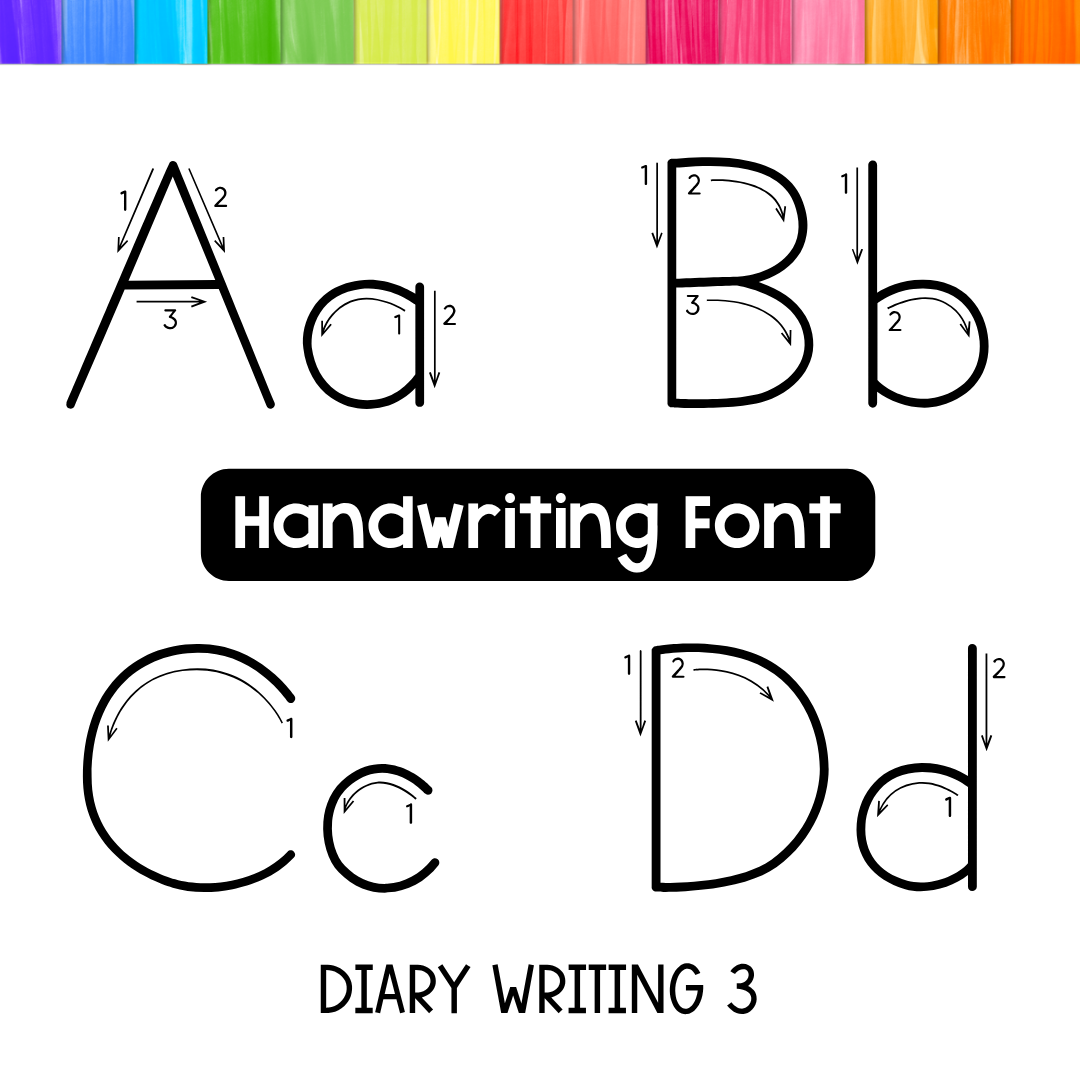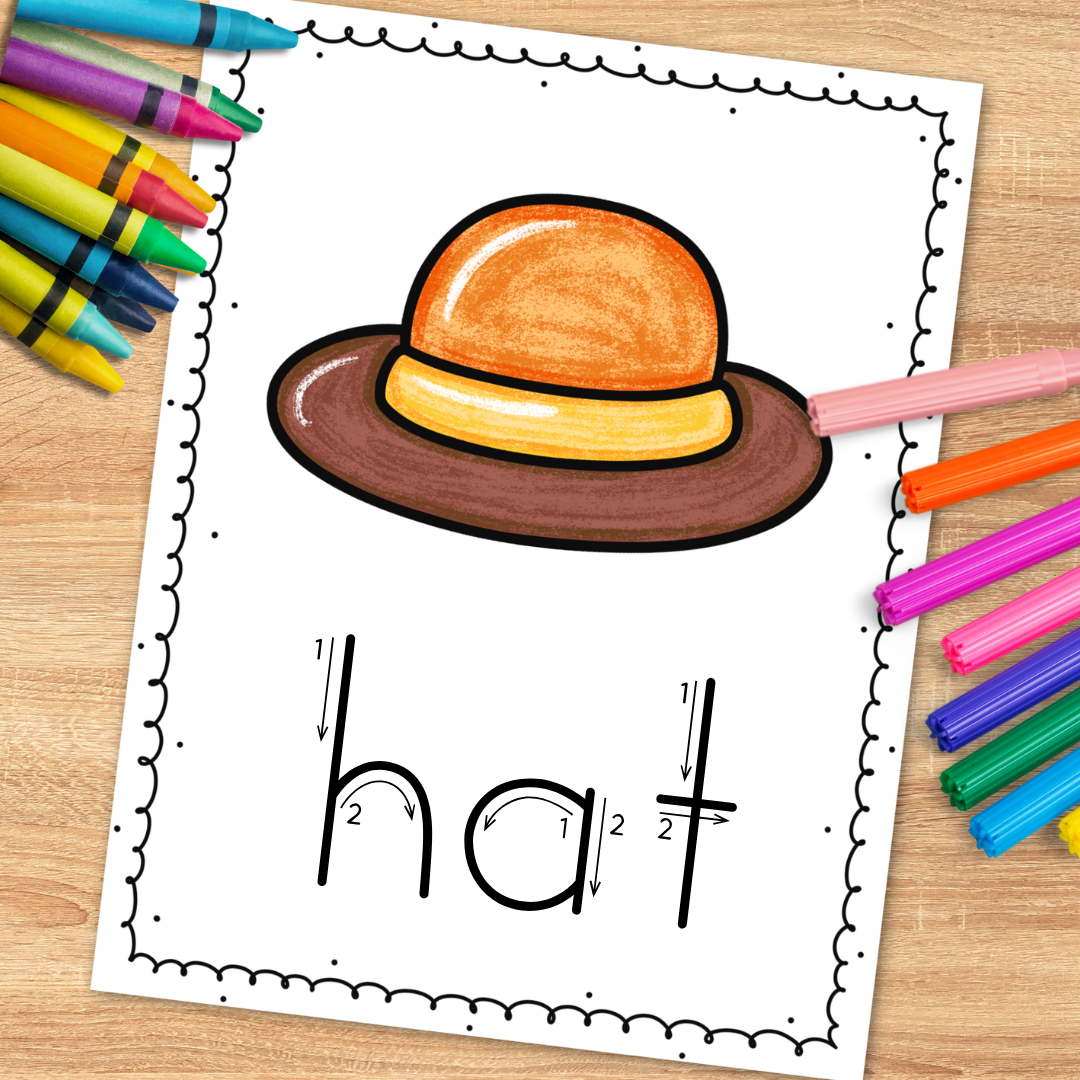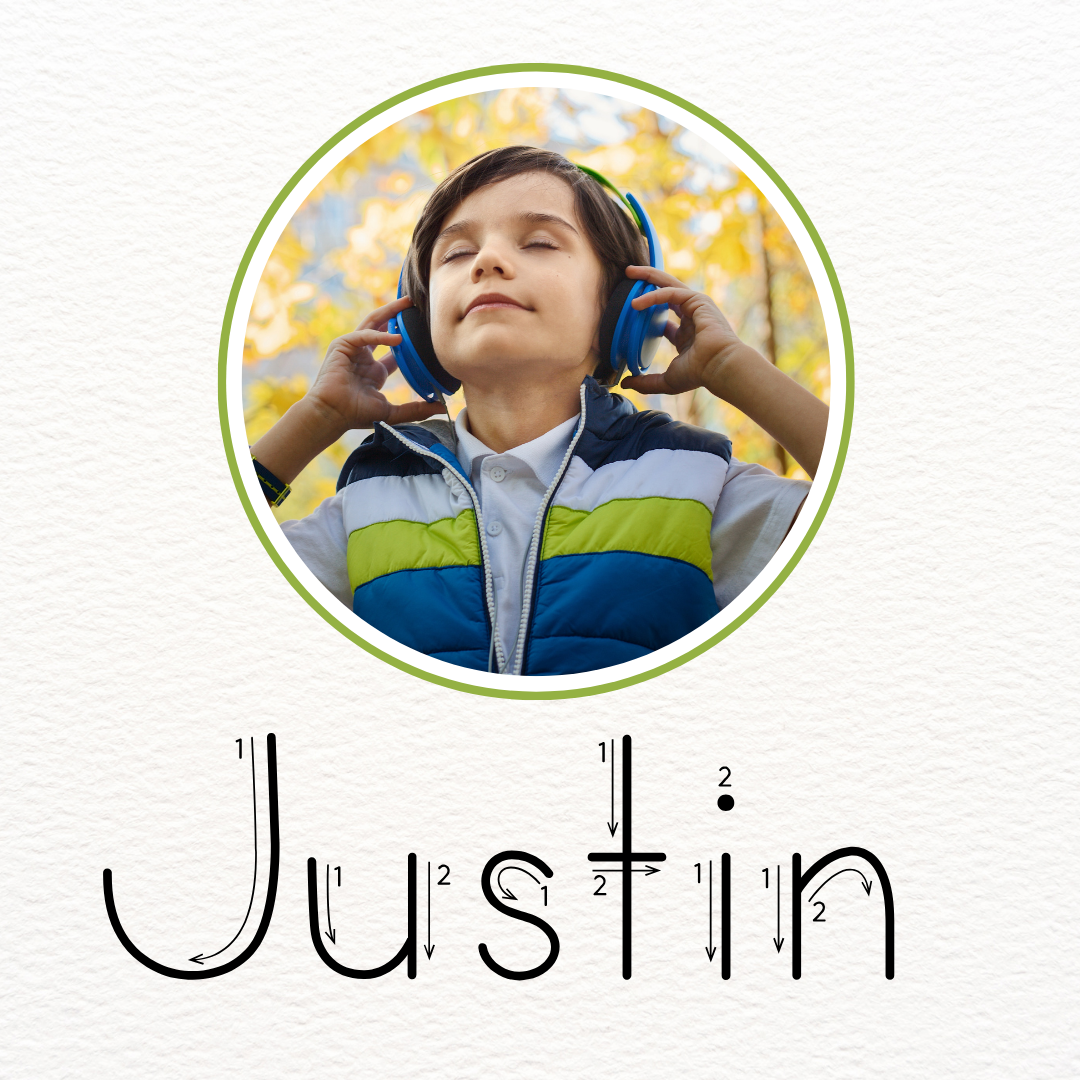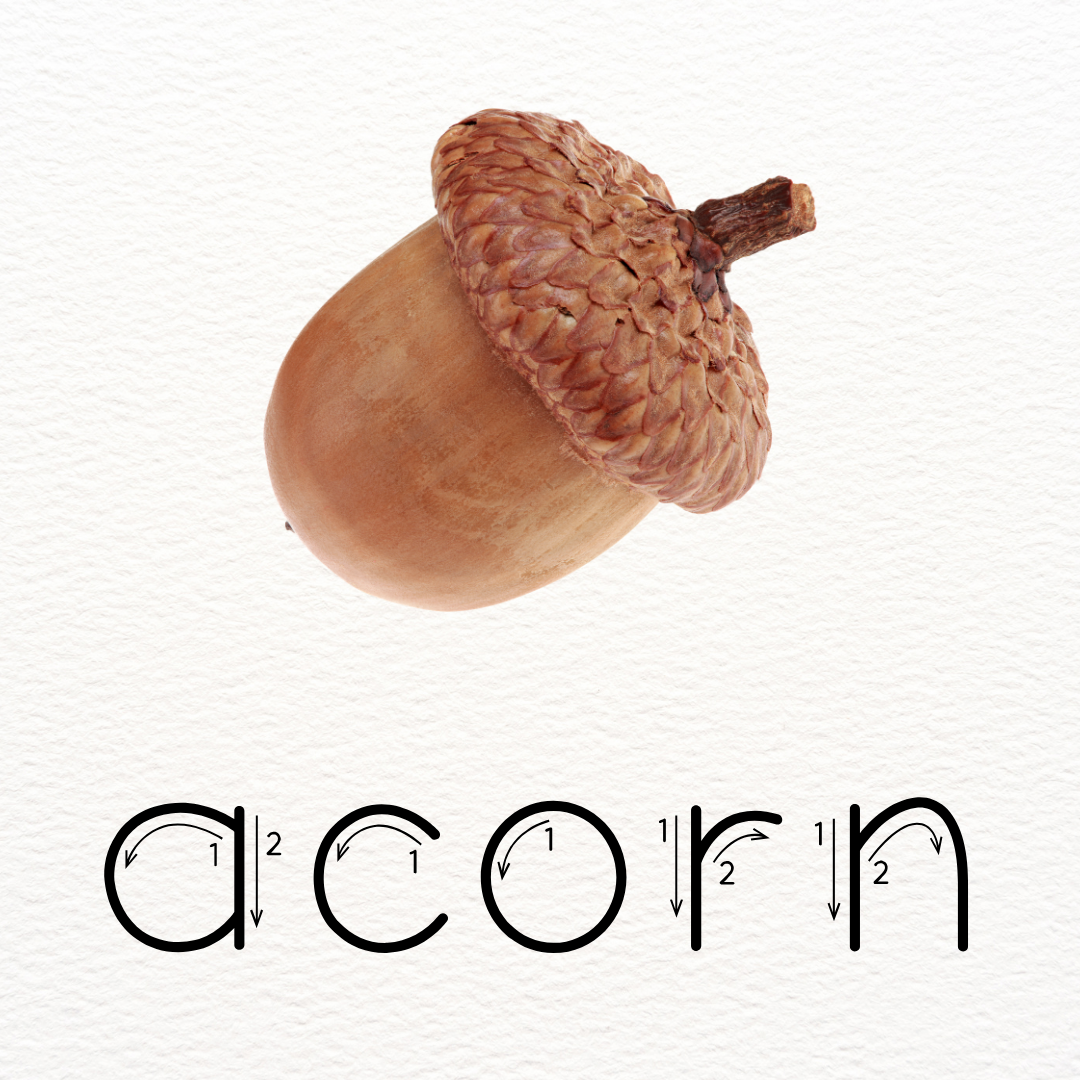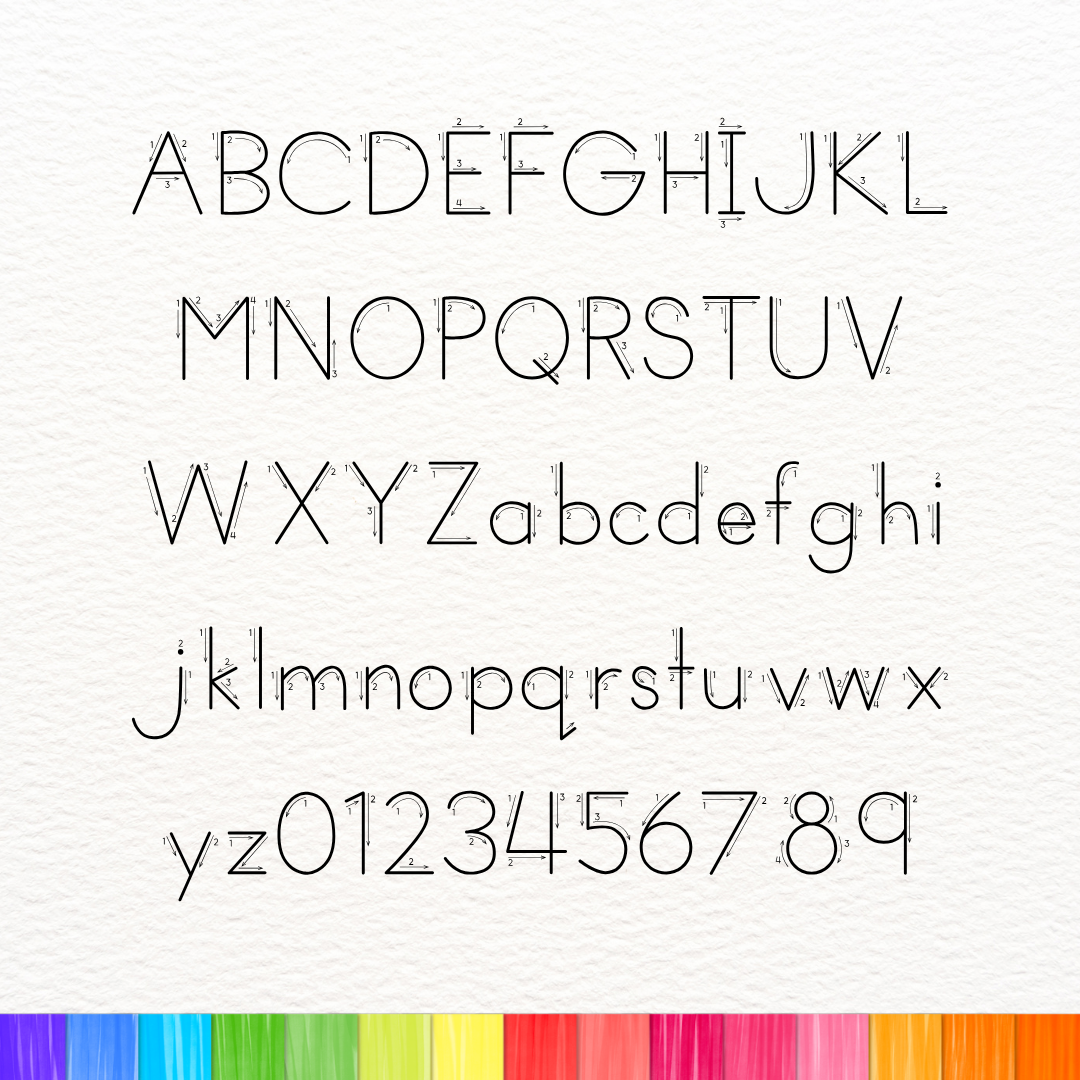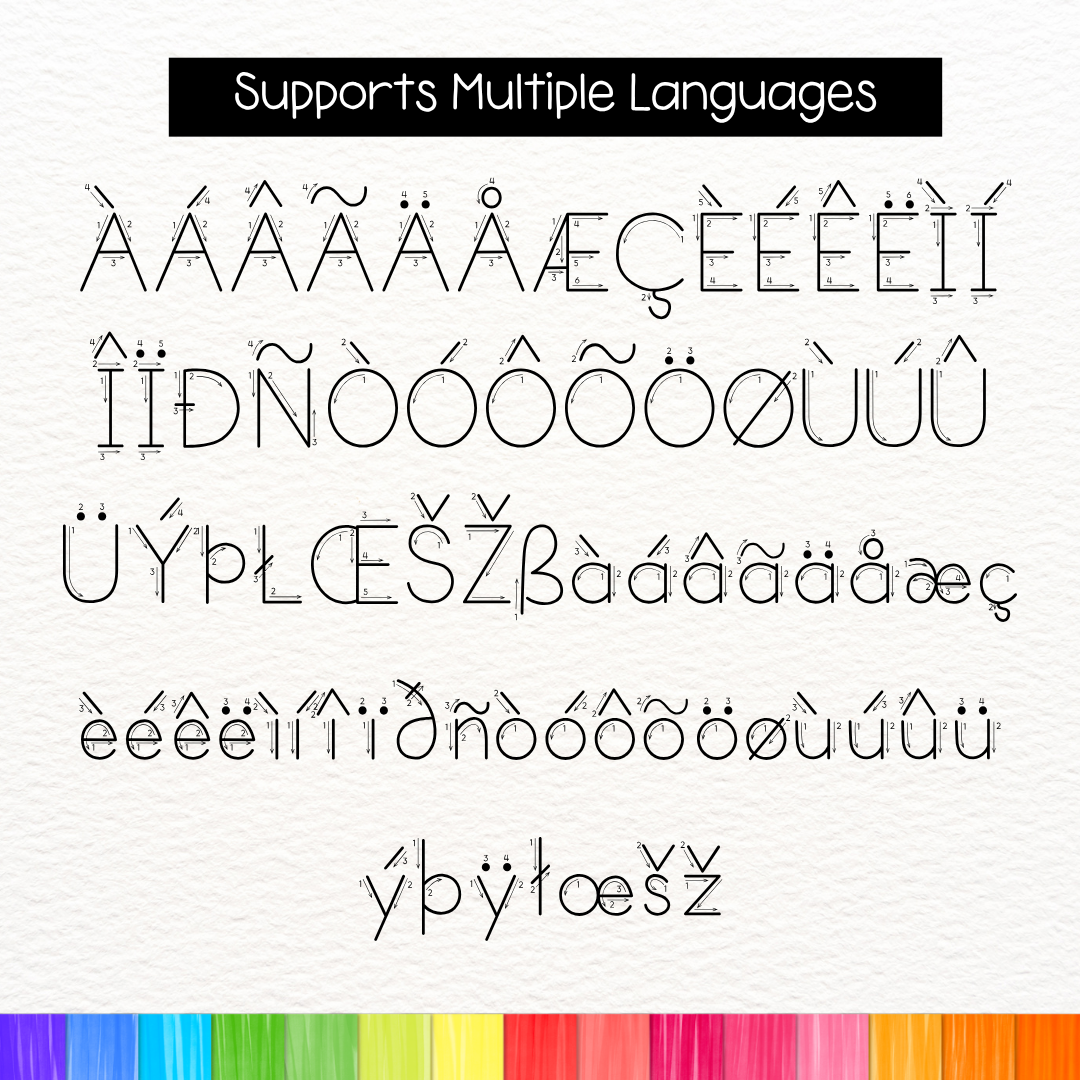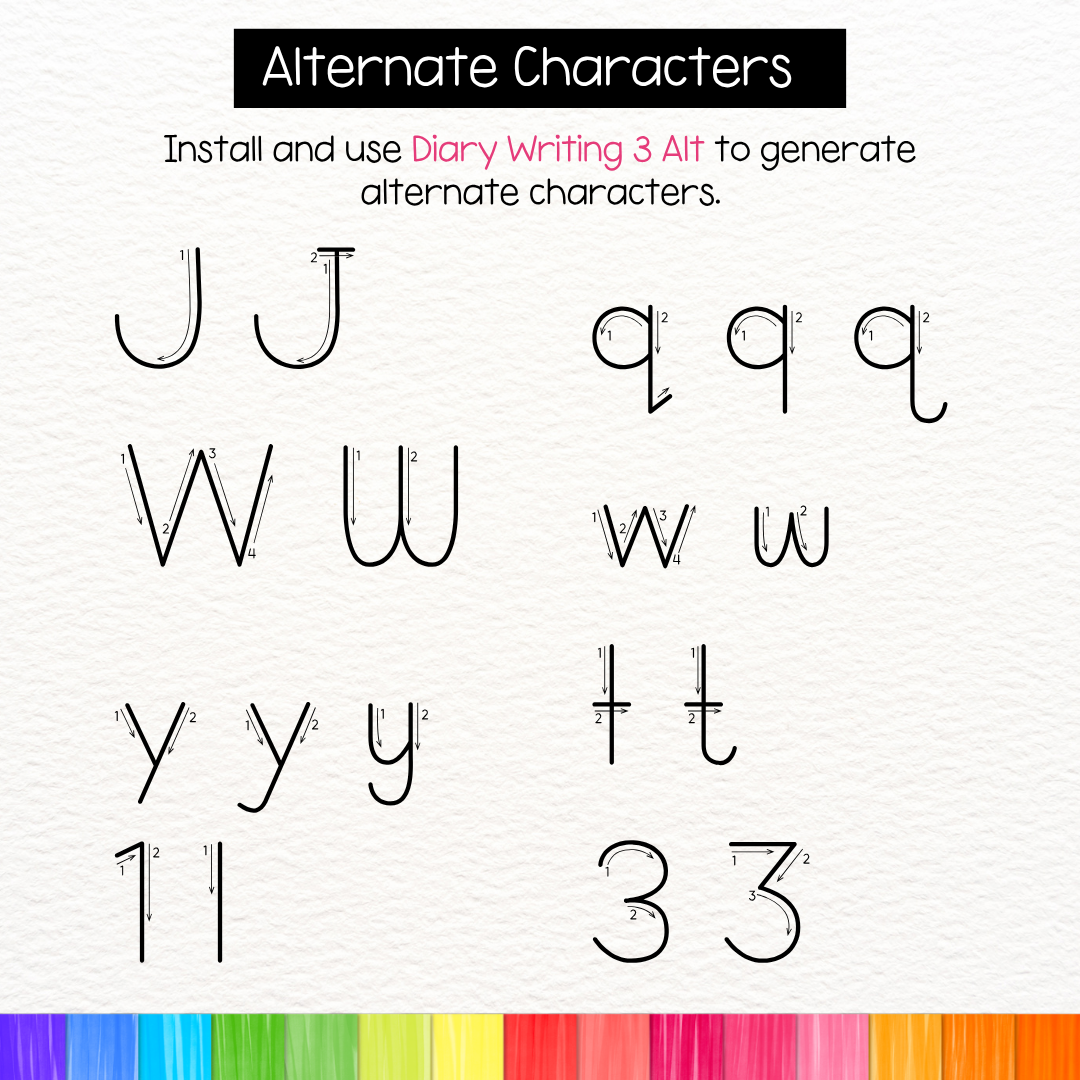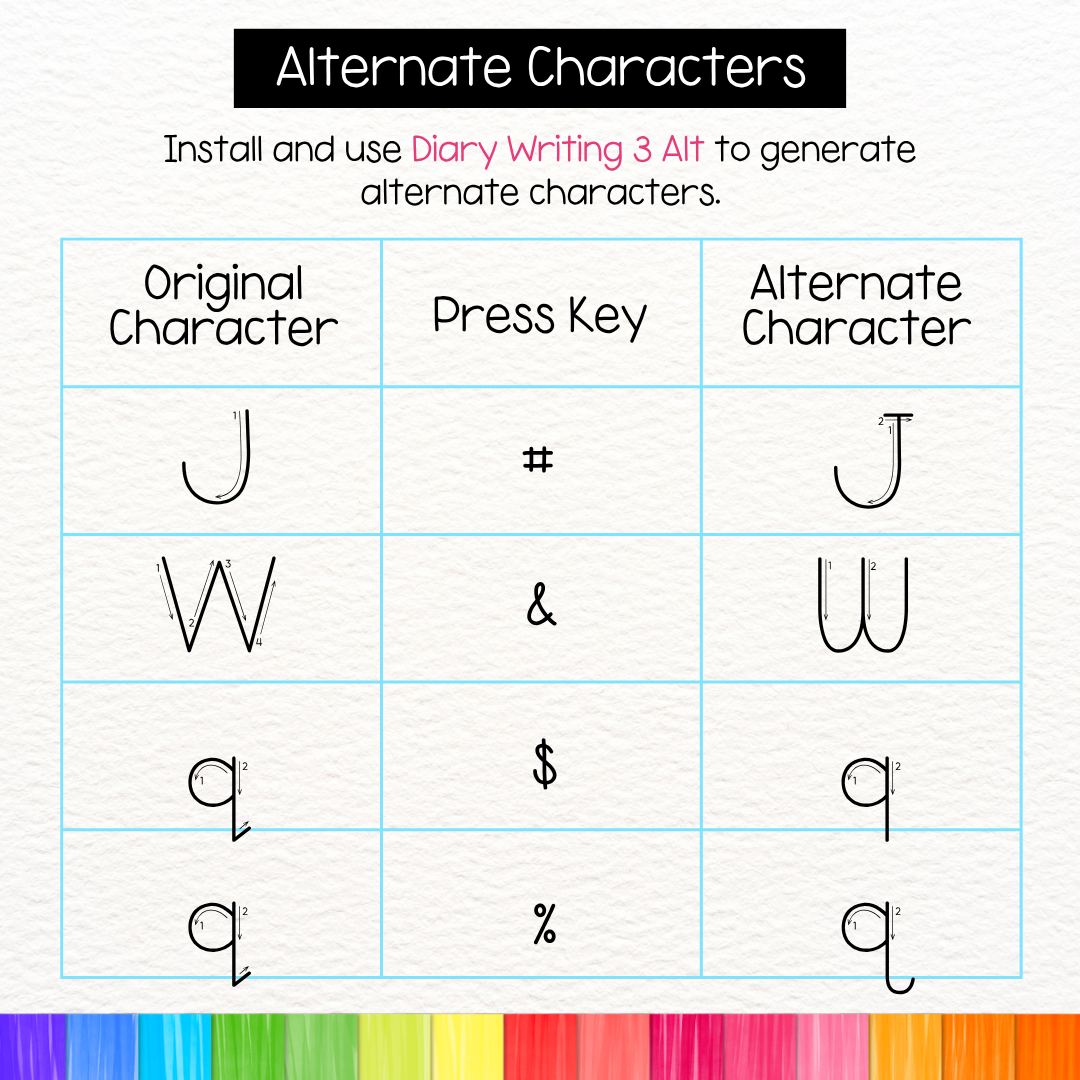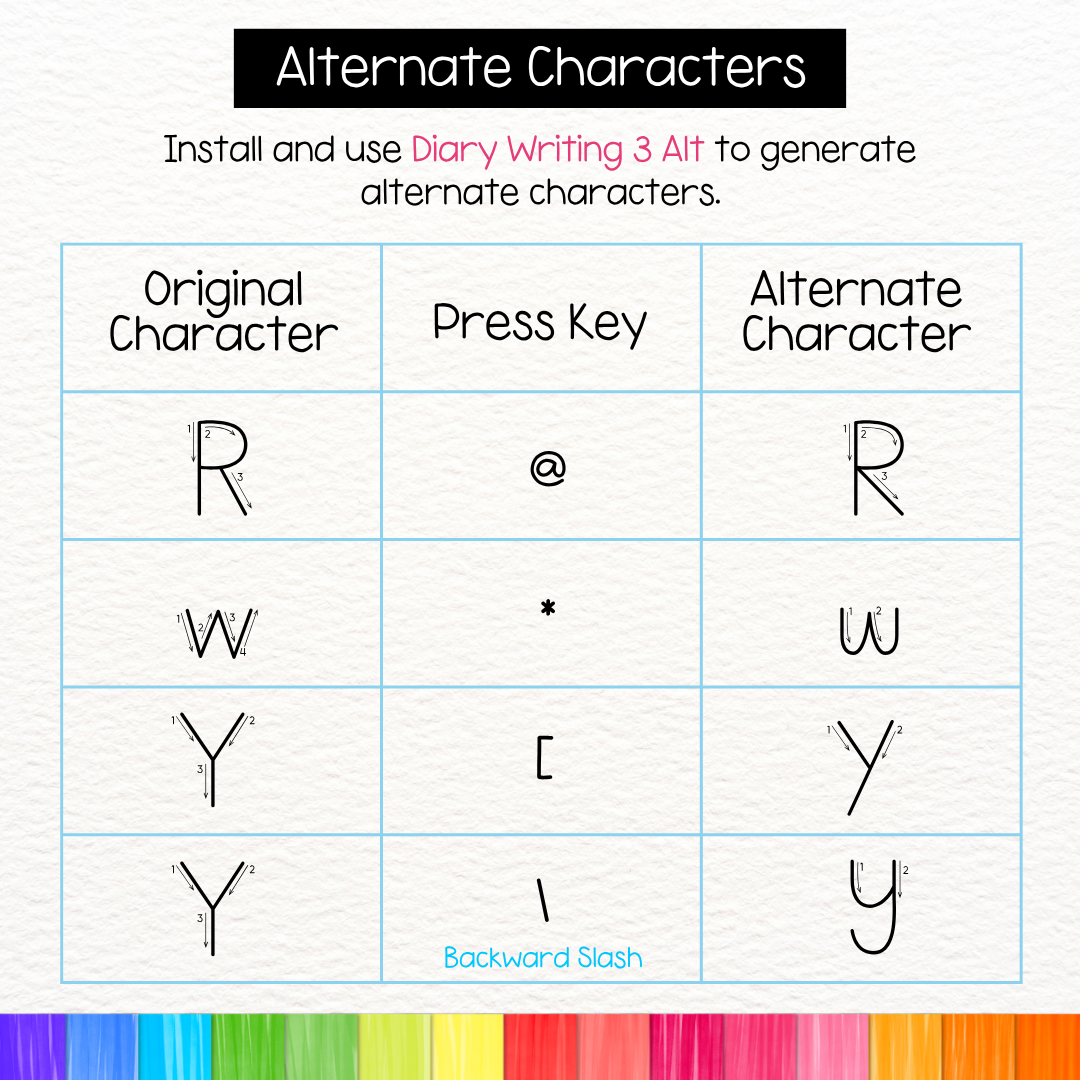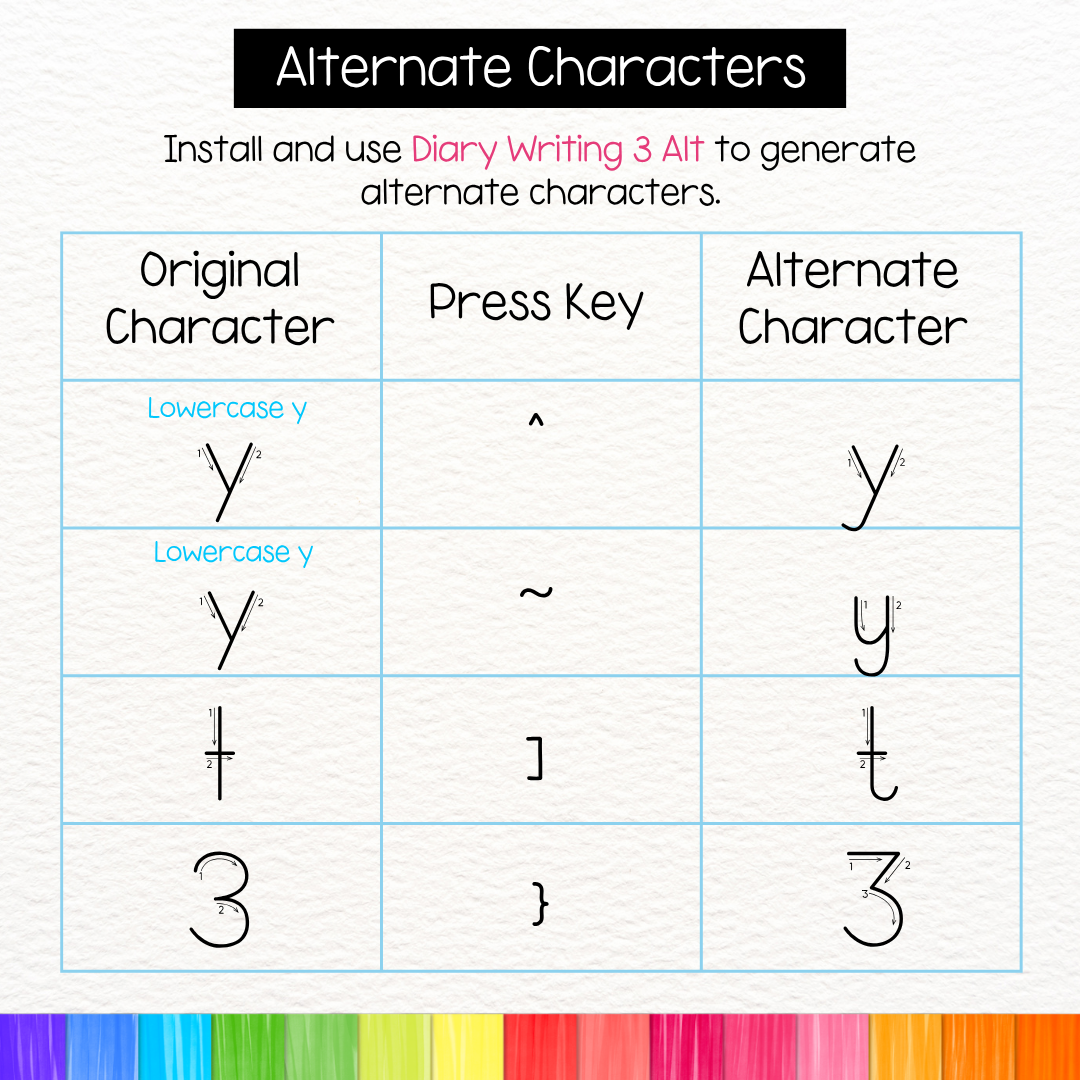
Print ABC Alphabet Font with Directional Arrows and Number Guides for Handwriting Practice
Handwriting Font with Arrow and Number Guides – Diary Writing 3 – Commercial Use
This handwriting practice font has letters with arrow and number guides, perfect for your tracing and fine motor activities. This font includes all capital letters, lowercase letters, and numbers, making it ideal for toddler tracing, name tracing, letter recognition, and number tracing exercises, as well as worksheets. It also supports multiple languages. (PLEASE SEE PREVIEW TO SEE LETTER FORMS)
Create fun and engaging activities for kids to trace letters with these goodies!
Diary Writing 3 – letters with arrows and number guides